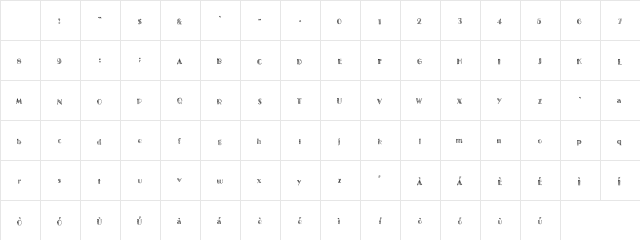
TwentySomething is a composed and adaptable typeface that performs quietly and consistently across a wide range of design contexts. Its slender proportions lend an understated elegance to any composition.